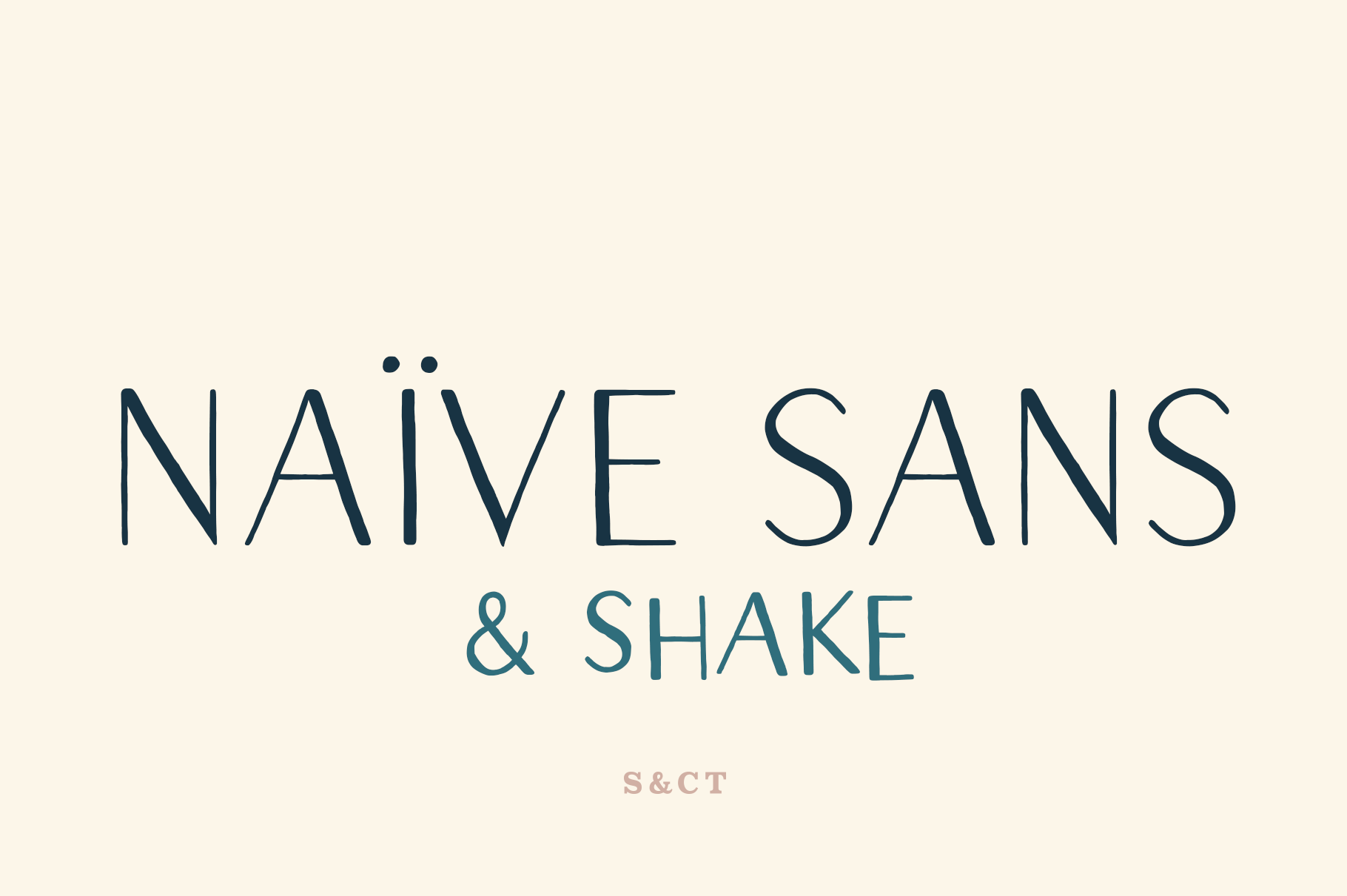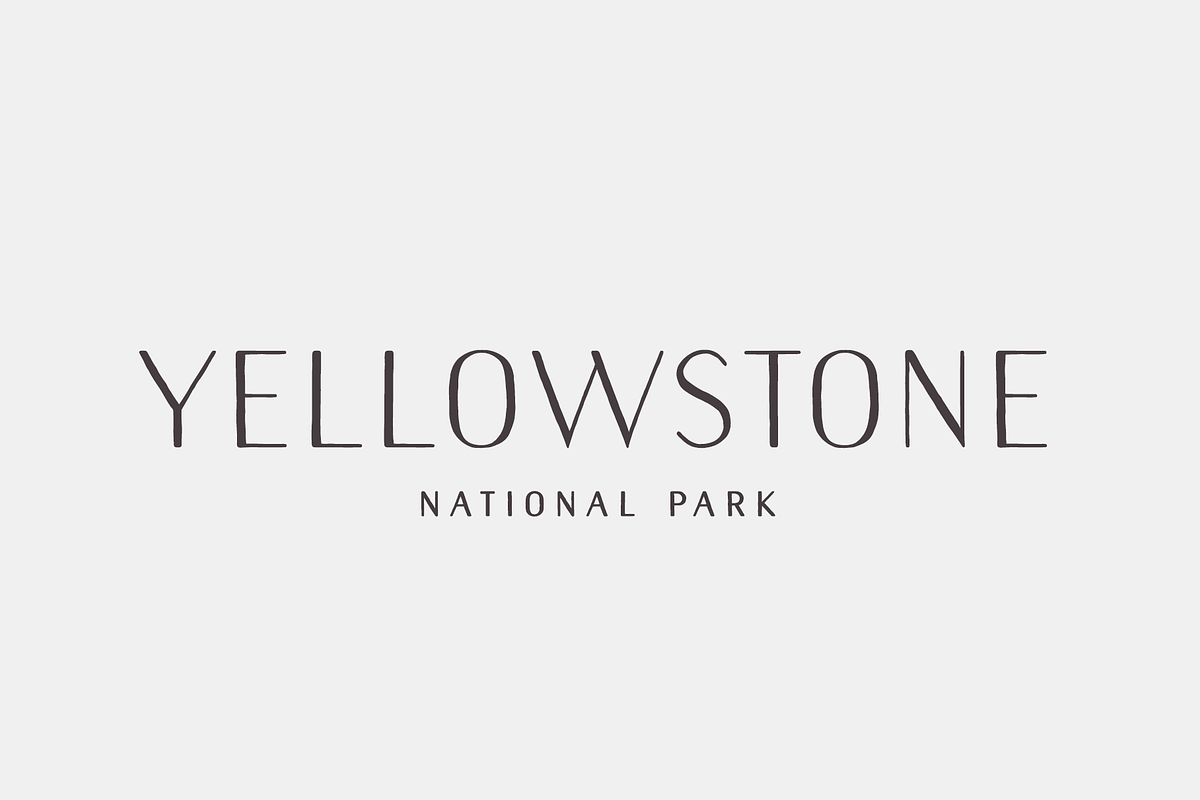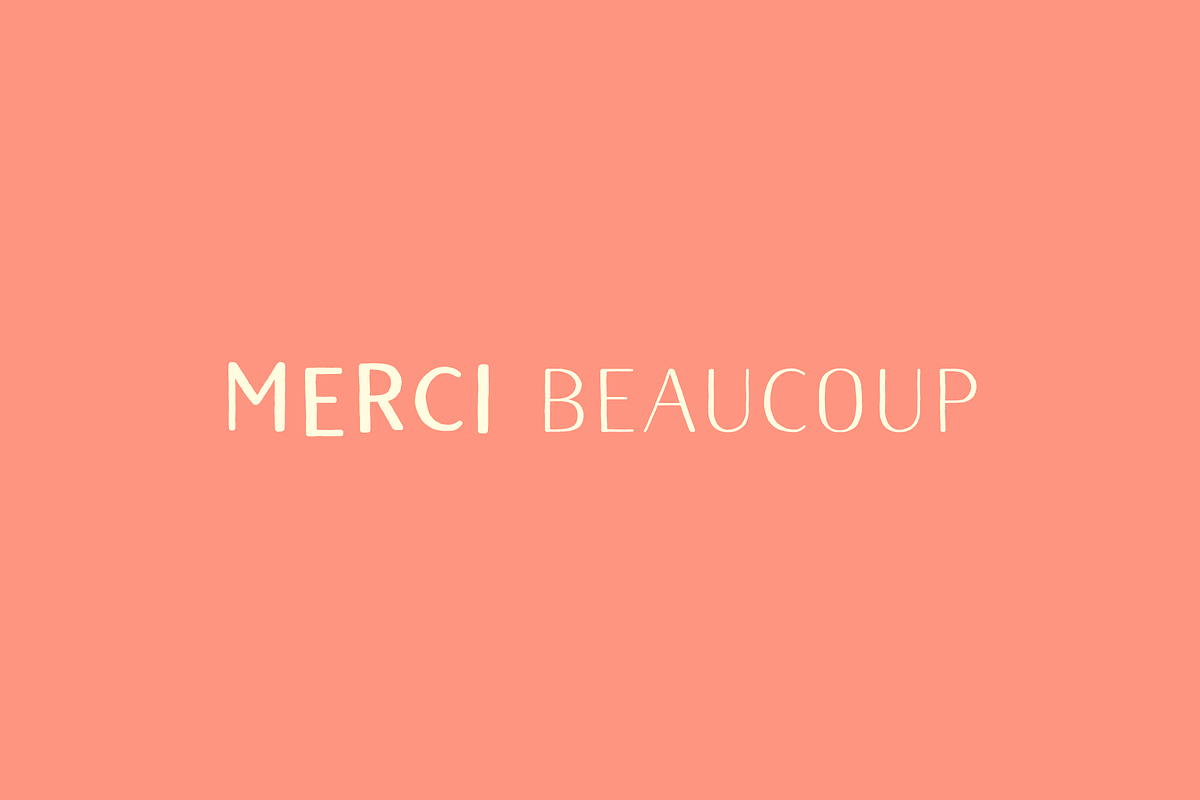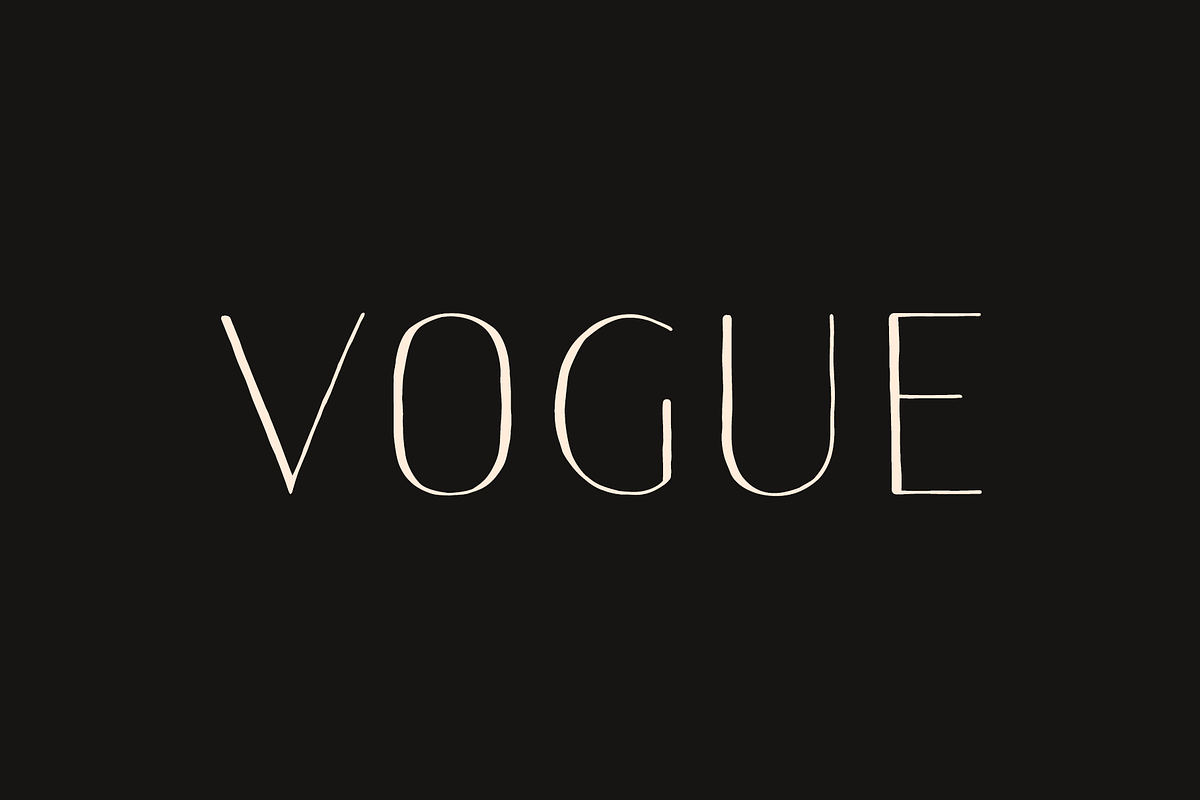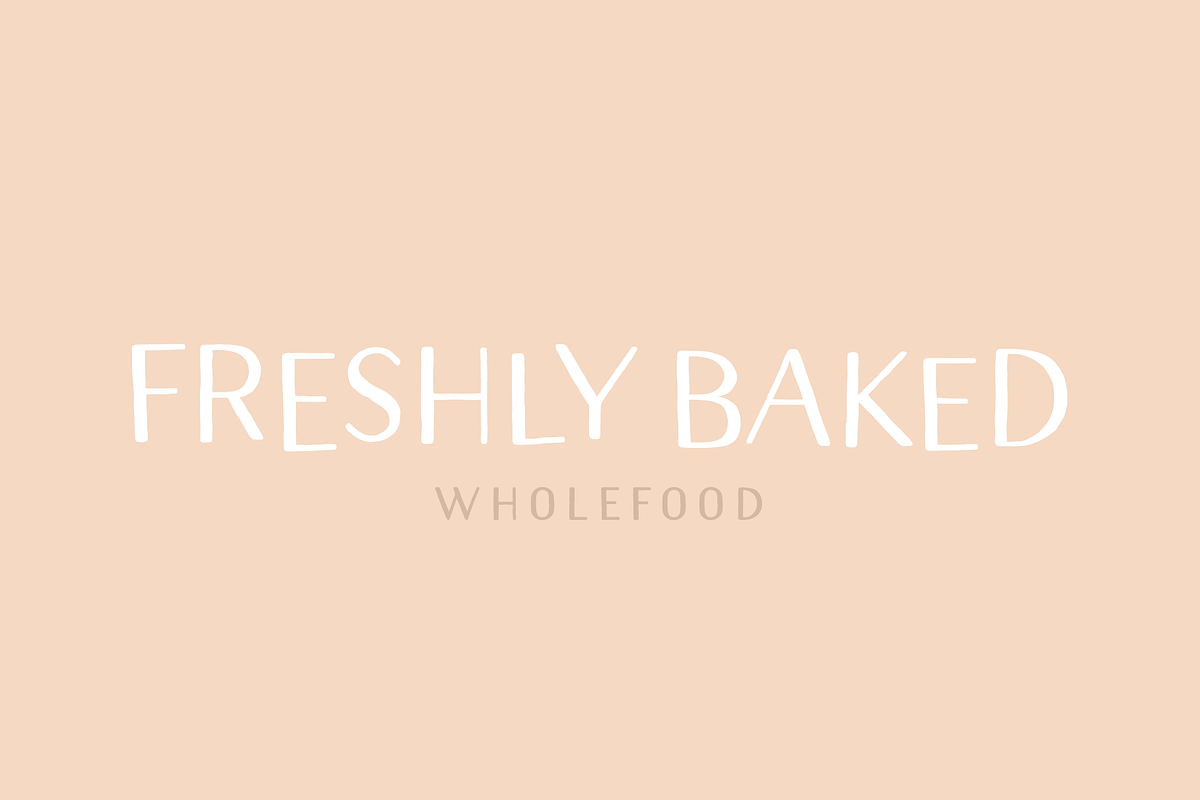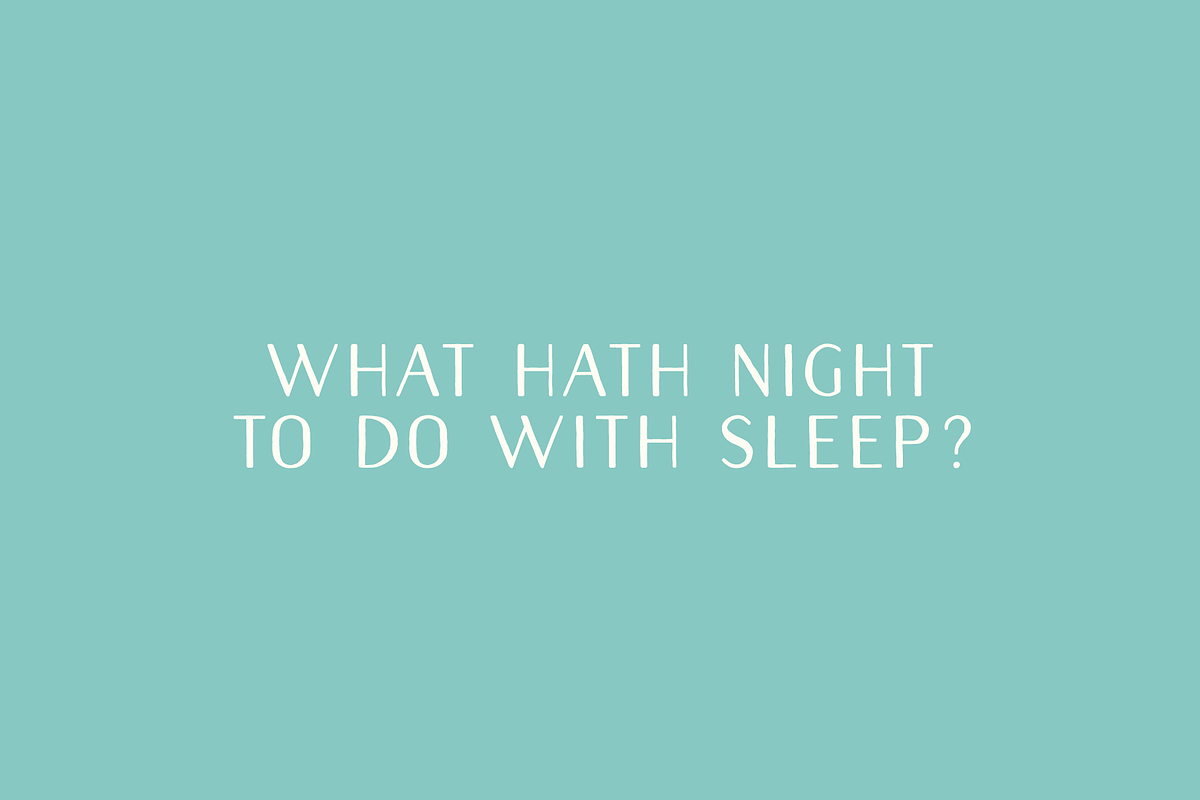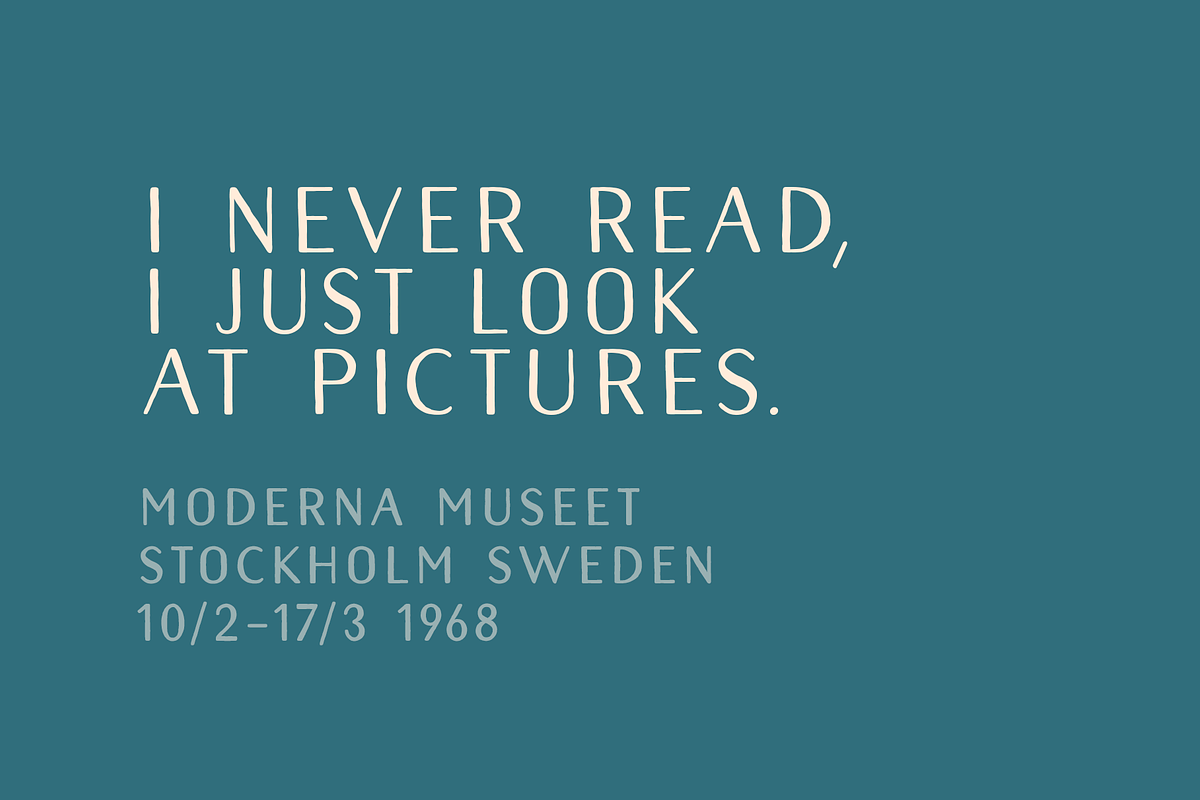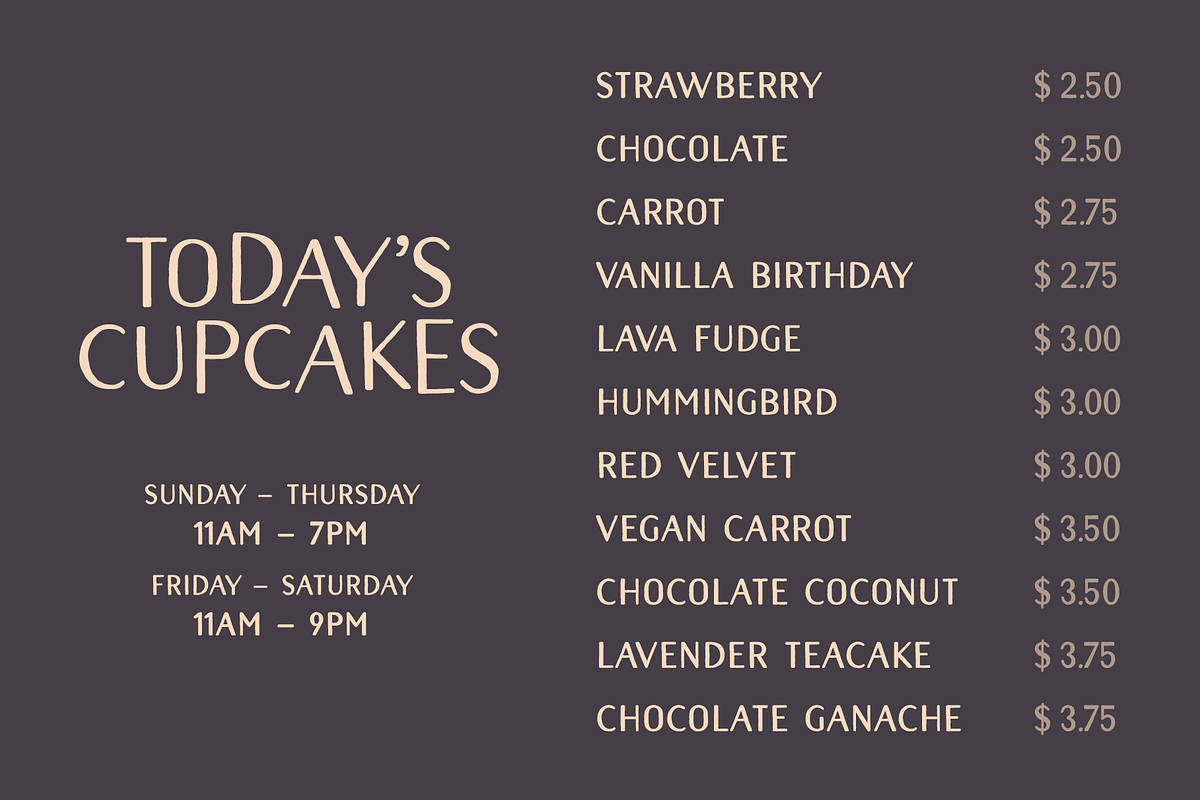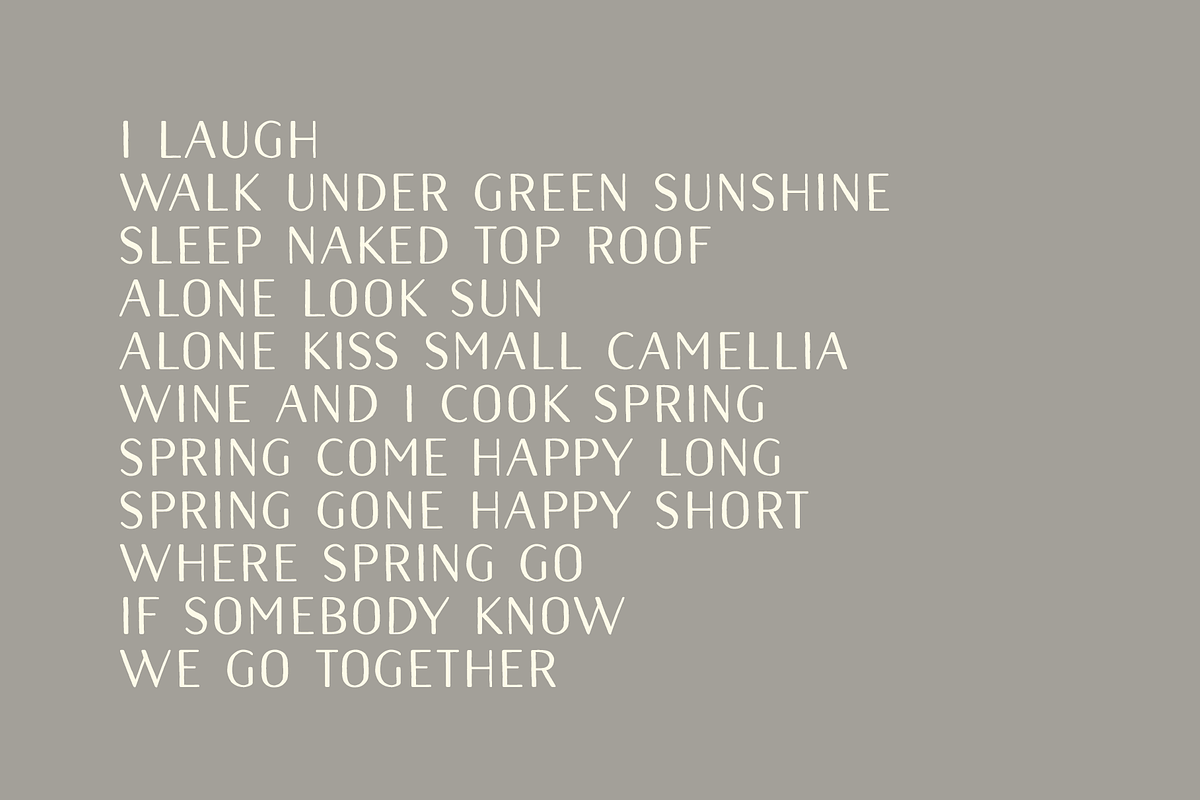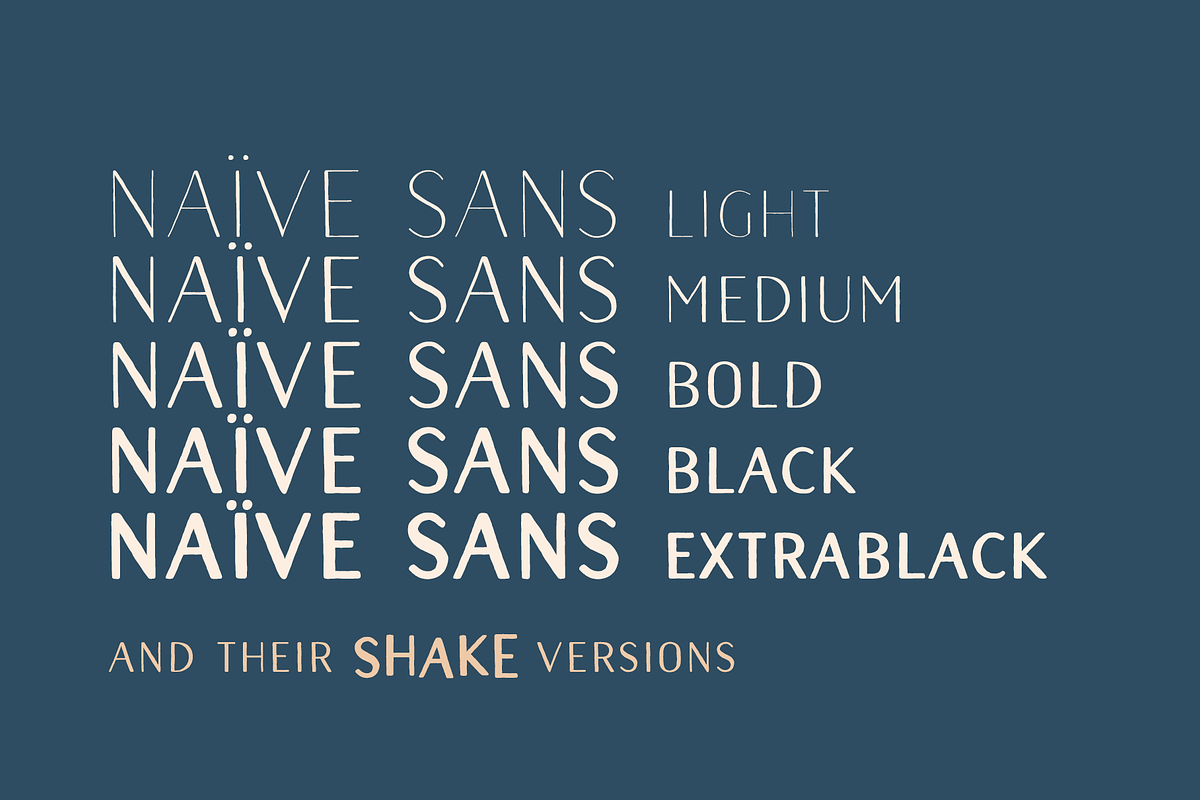
Naive Sans Font Collection
Naïve Sans is a sans serif handwritten font designed by Fanny Coulez and Julien Saurin in Paris. Our goal was to draw a font with finely irregular lines that give a human and whimsical feeling.
We drew five finely balanced weights to assure a good readability whatever the size, with contrasting upstrokes and downstrokes to add an unusual, fancy touch. We also designed five shaked versions with different lowercases and uppercases, to improve your designs and bring a more organic and playful feeling. Mixed or not, both styles can be used for various purposes, such as headings, logos, posters, wedding invitations...